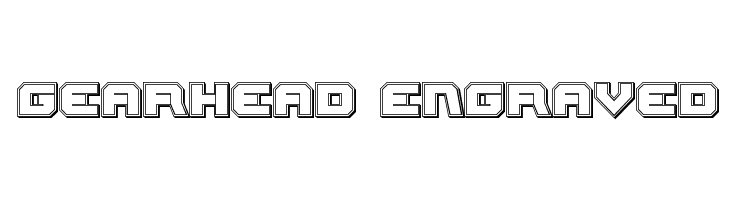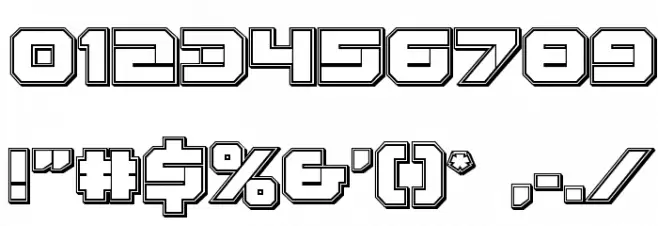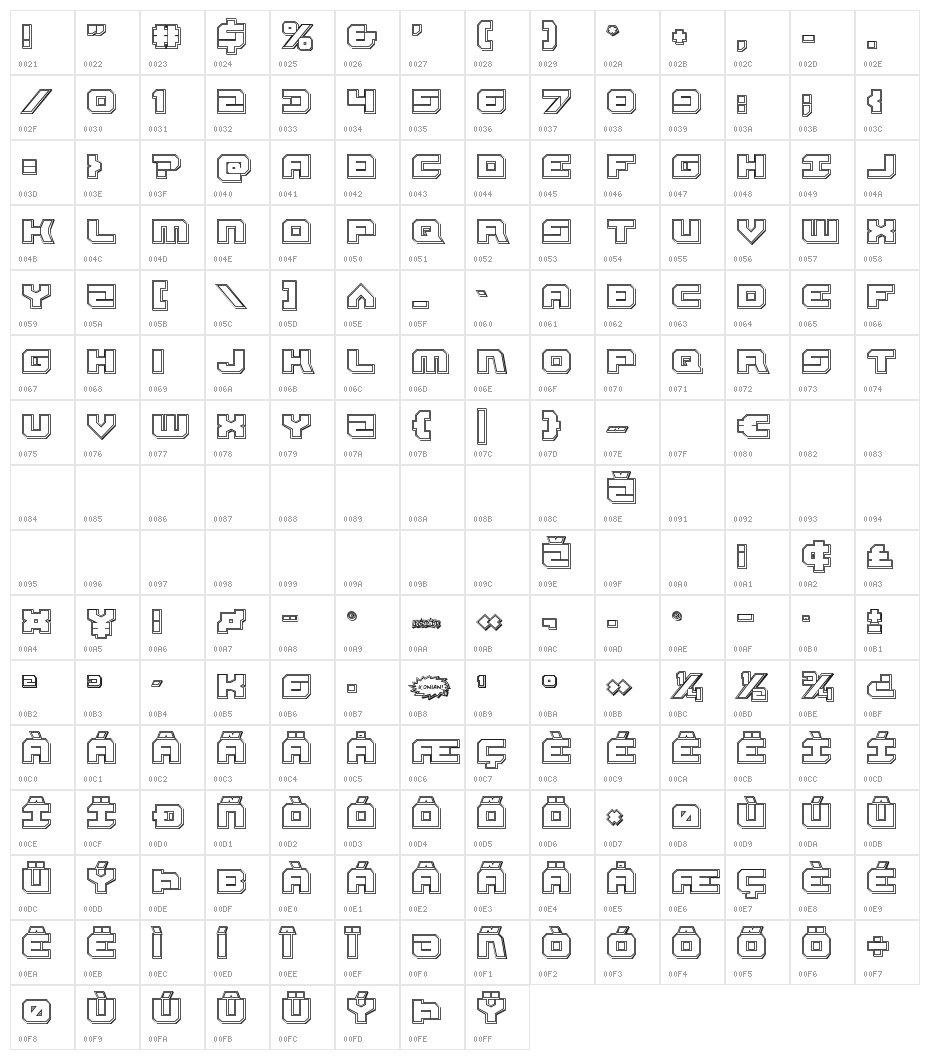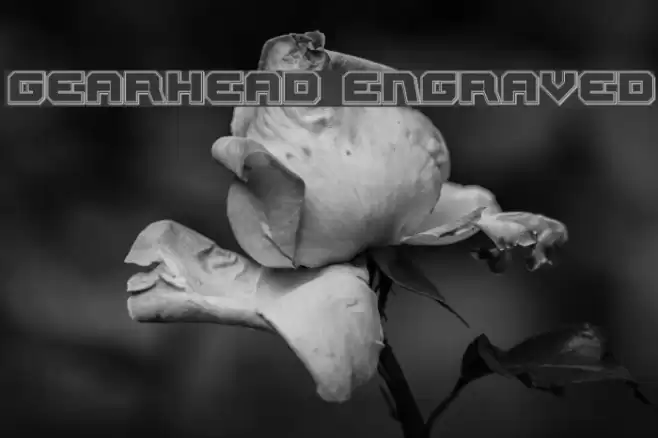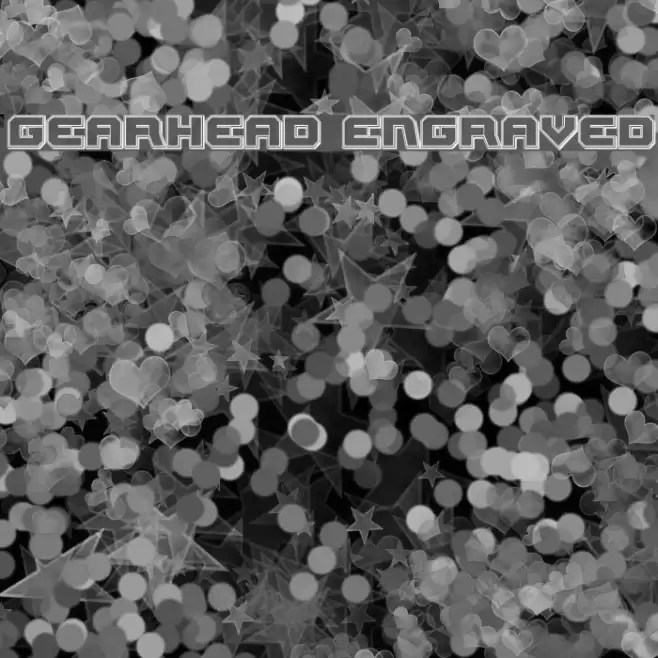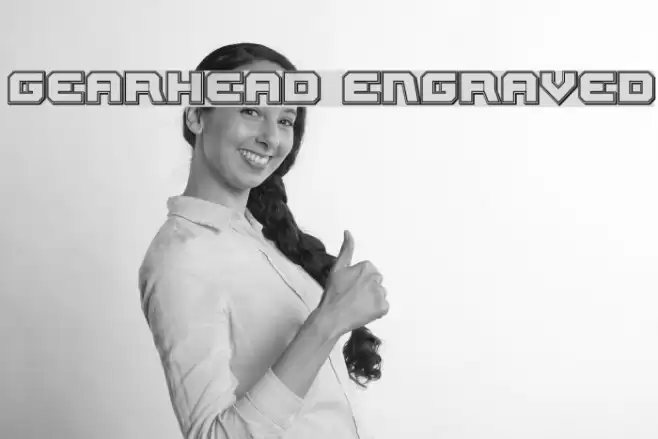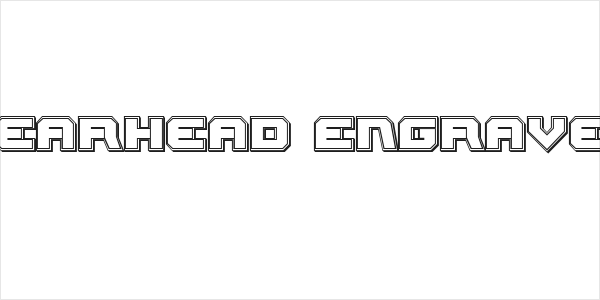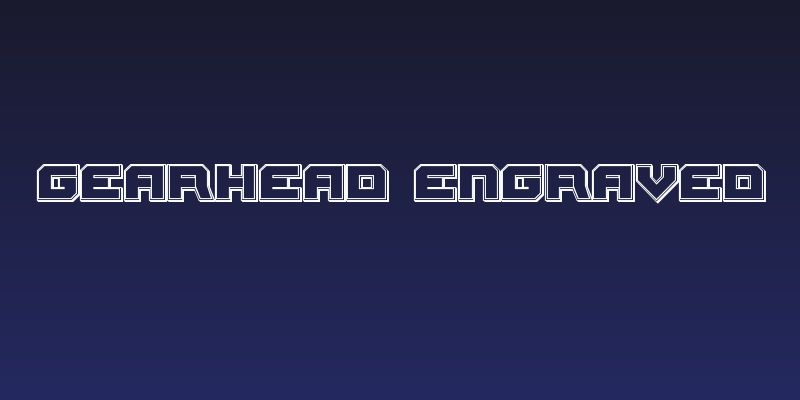
Gearhead Engraved Font
Gearhead Engraved Description
This font features a bold, industrial design with a three-dimensional engraved effect. The characters are blocky and geometric, with sharp angles and a strong presence. The outline style adds depth, making it ideal for impactful designs. Each letter and number is distinct, with consistent line thickness that enhances readability while maintaining a unique, mechanical aesthetic. The special characters complement the overall style, ensuring a cohesive look across all text elements.
| Proposed Projects | Ideal for projects requiring a strong, industrial look such as automotive branding, tech logos, or video game titles. |